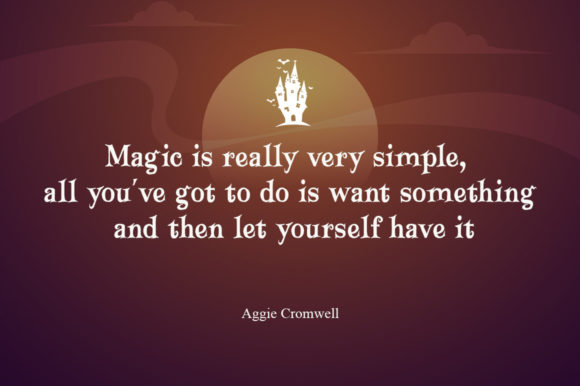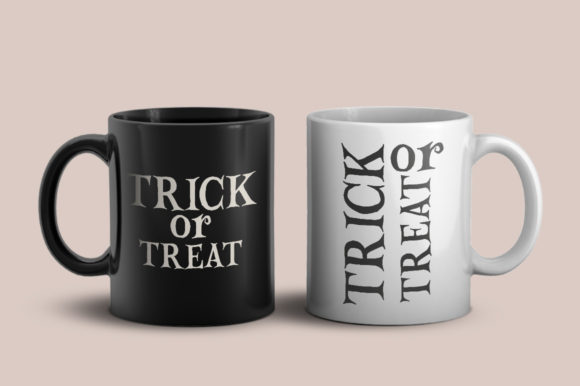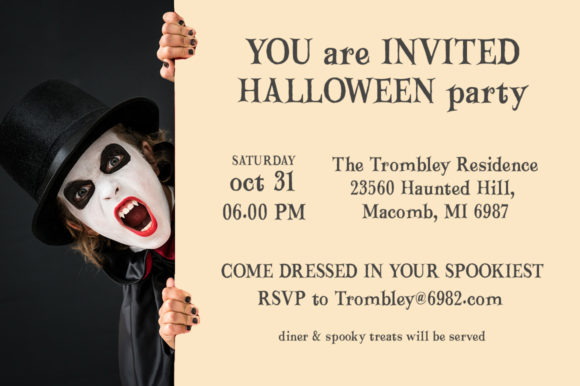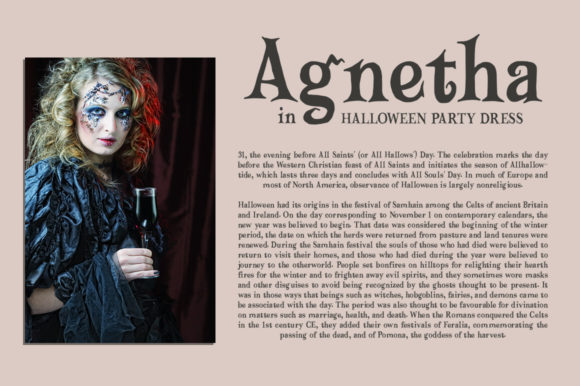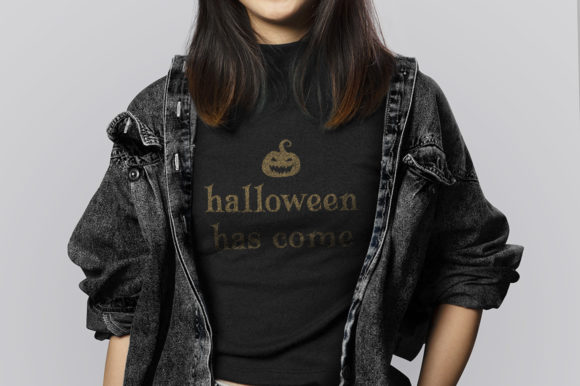
Happy Halloween Font: The Spookiest and Most Playful Display Font for Your October Projects
Are you looking for a font that will make your Halloween-themed projects stand out from the crowd? Look no further than the Happy Halloween Font! This spooky and playful display font is masterfully designed to bring a touch of eerie elegance to your October ideas. With its unique and captivating design, Happy Halloween Font has the potential to become a true favorite among designers and crafters.
What Makes Happy Halloween Font So Special?
Happy Halloween Font is a one-of-a-kind display font that is specifically designed to evoke the spirit of Halloween. Its playful and spooky design makes it perfect for a wide range of projects, from Halloween-themed party invitations and decorations to social media graphics and digital art. The font’s unique design elements, such as its bold lines, curvaceous shapes, and creepy details, come together to create a truly eye-catching and memorable font.
Key Features of Happy Halloween Font
- Spooky and Playful Design: Happy Halloween Font features a unique and captivating design that is both spooky and playful. Its bold lines, curvaceous shapes, and creepy details make it perfect for Halloween-themed projects.
- Display Font: Happy Halloween Font is a display font, making it perfect for headlines, titles, and other large-format text.
- High-Quality Design: Happy Halloween Font is designed to the highest standards, ensuring that it looks great in any project.
How to Use Happy Halloween Font in Your Projects
Happy Halloween Font is a versatile font that can be used in a wide range of projects, including:
- Halloween-themed Party Invitations: Use Happy Halloween Font to create spooky and playful invitations for your Halloween party.
- Digital Art: Add a touch of Halloween spirit to your digital art with Happy Halloween Font.
- Social Media Graphics: Use Happy Halloween Font to create eye-catching social media graphics for your Halloween-themed posts.
- Halloween Decorations: Use Happy Halloween Font to create spooky and playful decorations for your Halloween party or home.
Tips and Tricks for Getting the Most Out of Happy Halloween Font
Here are a few tips and tricks for getting the most out of Happy Halloween Font:
- Experiment with Different Colors: Happy Halloween Font looks great in a wide range of colors, so don’t be afraid to experiment and find the perfect color for your project.
- Use it with Other Fonts: Happy Halloween Font pairs well with other fonts, so try using it with a complementary font to create a unique and eye-catching design.
- Add Some Creepy Details: Add some creepy details, such as spider webs or jack-o-lanterns, to your project to really make it stand out.
In conclusion, Happy Halloween Font is a spooky and playful display font that is perfect for any Halloween-themed project. Its unique and captivating design makes it a true standout, and its ease of use makes it a great choice for designers and crafters of all levels. So why wait? Download Happy Halloween Font today and bring a touch of Halloween spirit to your projects!